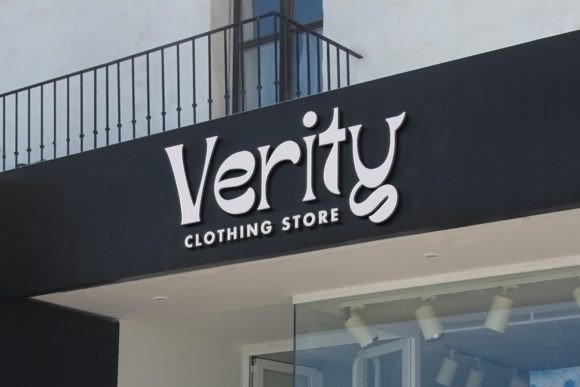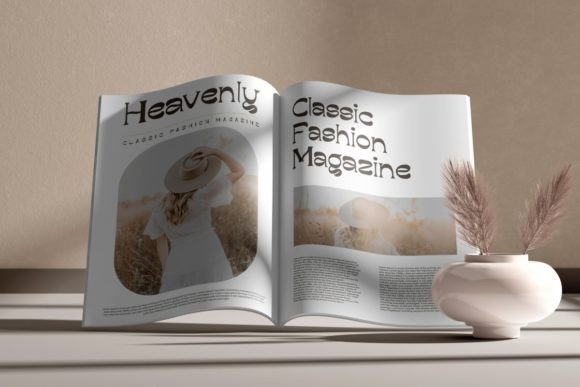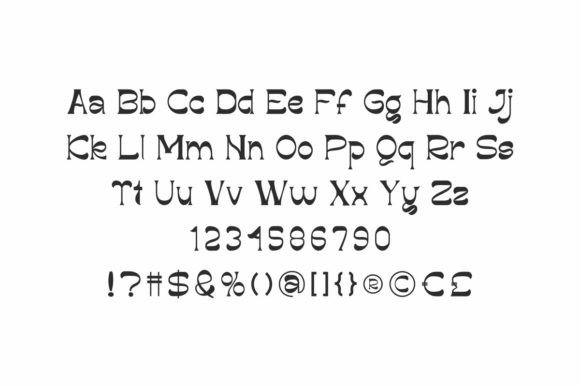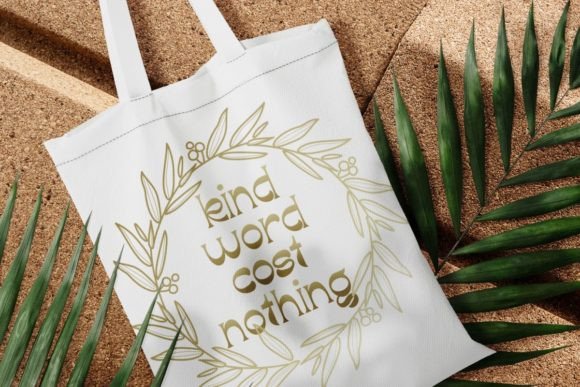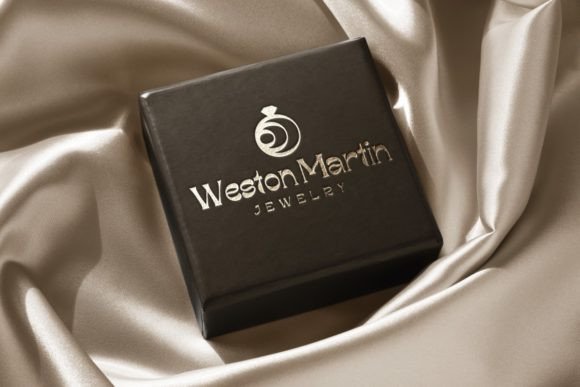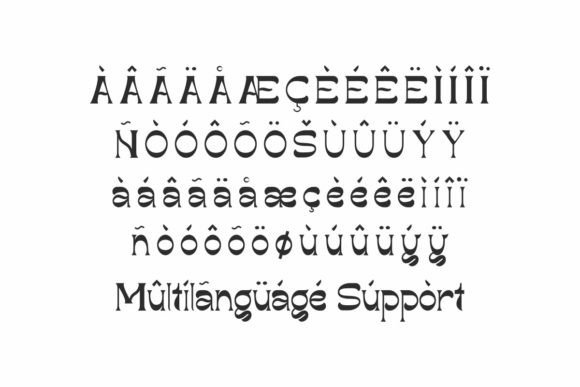
Introduction to Paramatta Font Font
Fonts play a crucial role in design, and the Paramatta Font font is a typeface that brings both character and versatility to any project. Whether you’re working on a branding project, a website, or a print design, the Paramatta Font font offers a unique style that can elevate your work.
Paramatta is a stylish, uniquely-shaped display font.
This font is crafted with unique, groovy lines that will entice anyone to use it Add this font to your collection and explore unlimited creativity in your designs.
Key Features of Paramatta Font Font
Why Choose Paramatta Font Font?
The Paramatta Font font is more than just a typeface – it’s a design tool that helps you communicate your message with style and clarity. Its unique character set and versatile design make it suitable for a wide range of applications, from elegant invitations to bold headlines.
With its carefully crafted letterforms and balanced proportions, the Paramatta Font font ensures readability and visual appeal across all mediums.
What makes Paramatta Font font special?
The Paramatta Font font stands out with its unique design, exceptional readability, and versatility across various design applications.